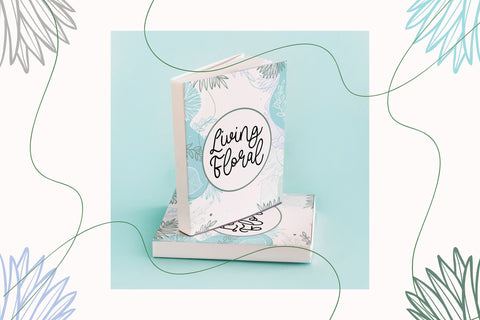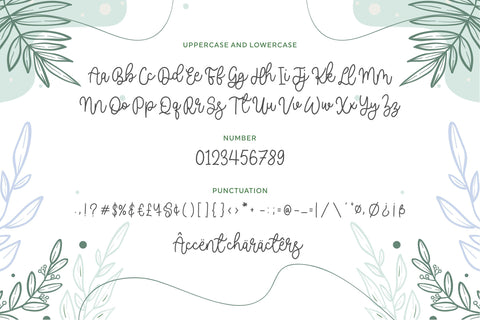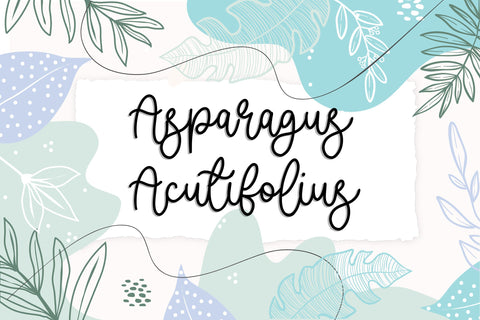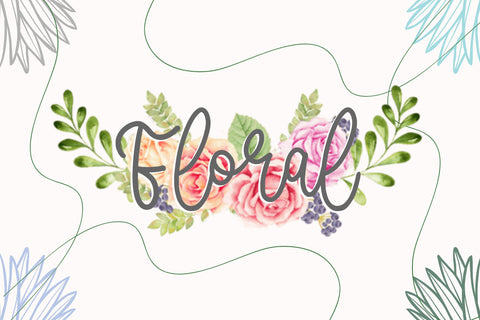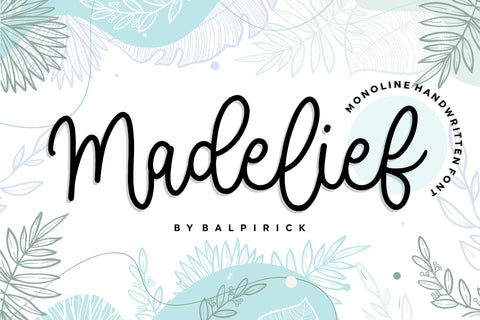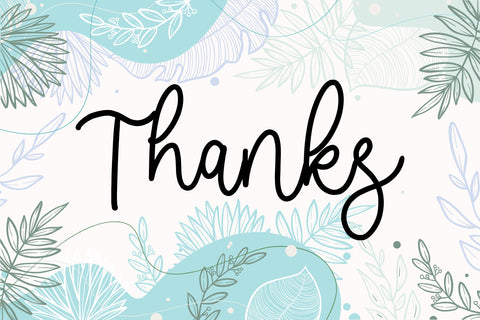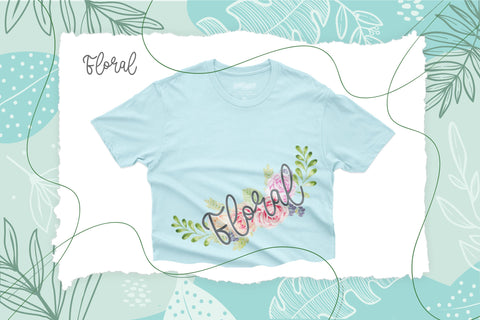
Madelief monoline handwritten font
Proudly Present, Madelief Font.
Madelief is a monoline handwritten font.
Madelief is perfect for product packaging, branding project, megazine, social media, wedding, or just used to express words above the background.